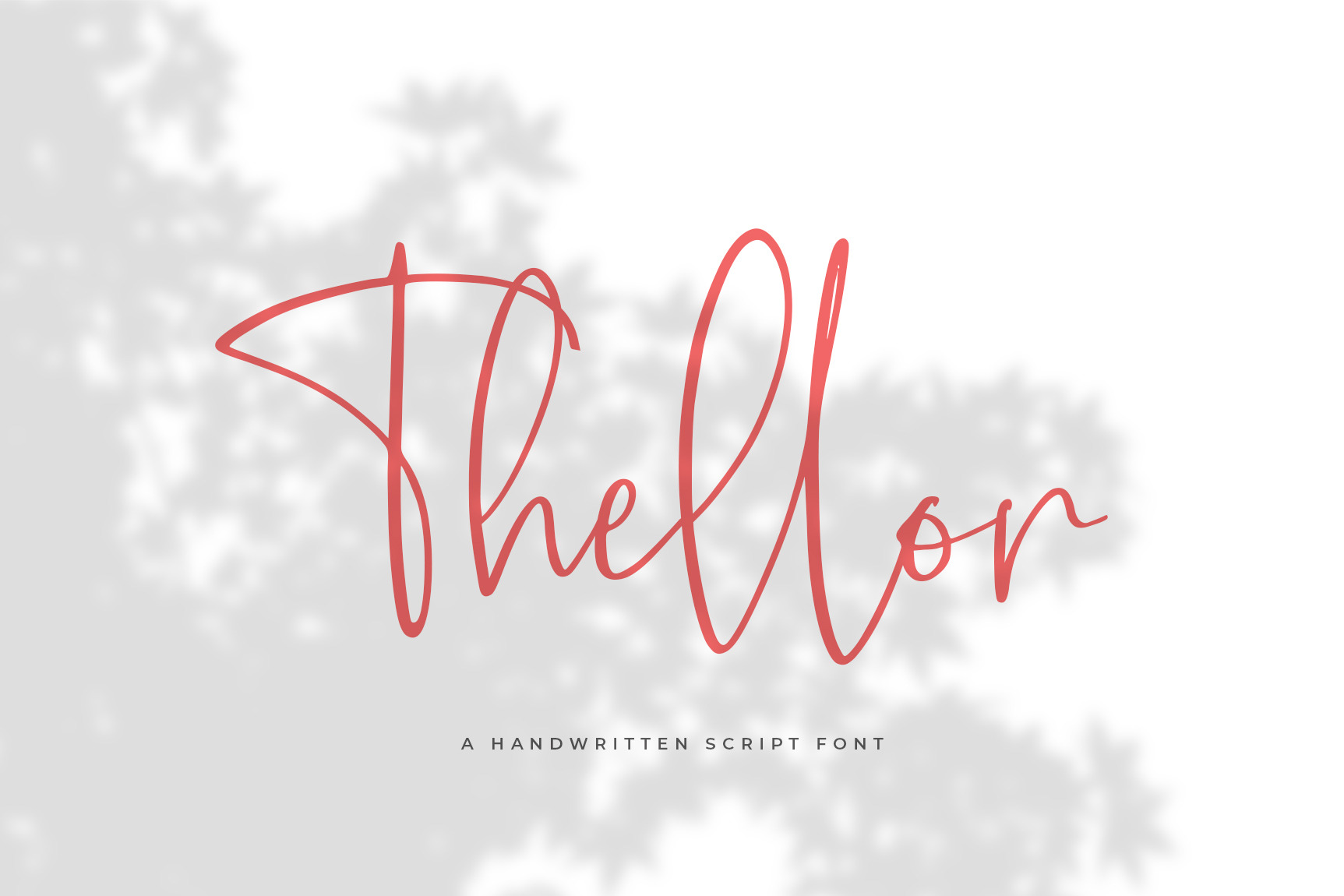
Thellor Font
Thellor is an elegant handwritten script font. Get inspired by its unique shape and character!
What's included: Thellor contains standard characters, lowercase, uppercase, numbers, punctuation, ligatures and international characters. You will receive OTF and TTF files.